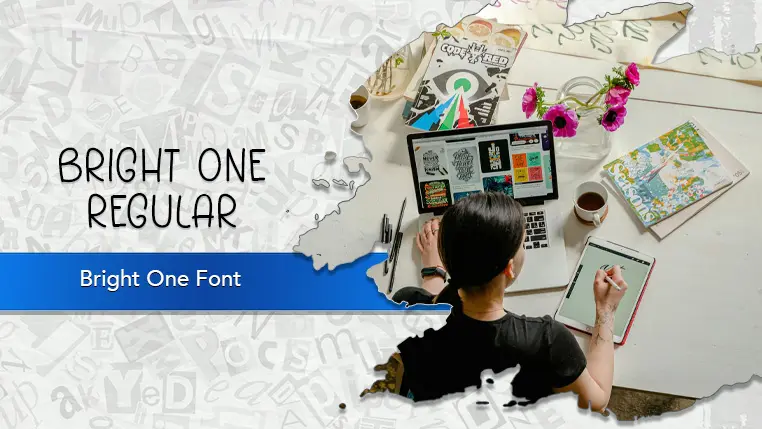
The Bright One font family may be ideal for you if you enjoy working on an artistic design project. The lively, expressive look of this typeface, which was created by Khurasan, makes it ideal for Logos where a personalized, handwritten touch is desired. Graphics for Instagram, Pinterest, or YouTube, especially for quotes, short messages, or branding for influencers and content creators focusing on positive or lifestyle content. Titles and banners for personal blogs or online shops that aim for a warm, inviting feel. Informal party invitations (birthdays, casual gatherings, graduations). Greeting cards, thank-you notes, or personalized stationery. Magazine titles, pull quotes, or subheadings in lifestyle, DIY, or craft publications. and other light-hearted visual projects.
Regular are the one primary font styles of the Bright One font family. You may build dynamic, visually appealing text layouts with the distinct flair that each style offers. With crisp, readable lines and a relaxed tone.